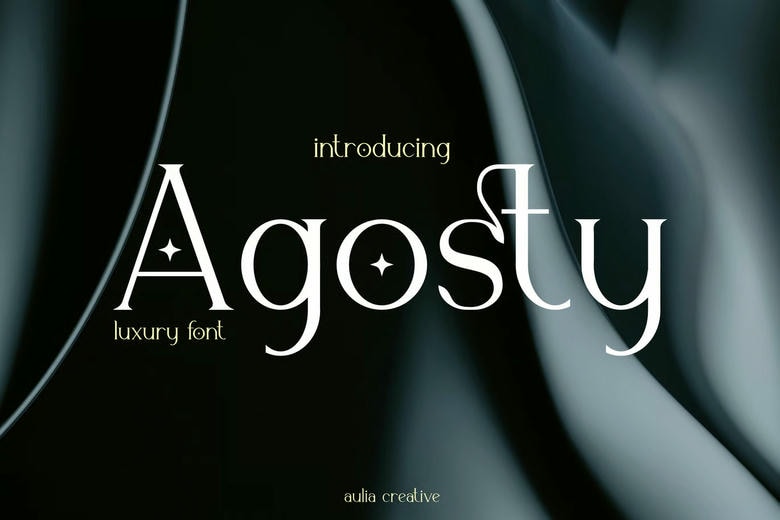
Agosty Font
Agosty is a contemporary refined serif typeface which adds sophistication and touch of authenticity to a design. It has sleek letterforms, and proportions, which provide a high-end and classy experience, which is ideal in display application in branding, editorial designs, and projects that need a refined and elegant look.
Agosty Serif Font